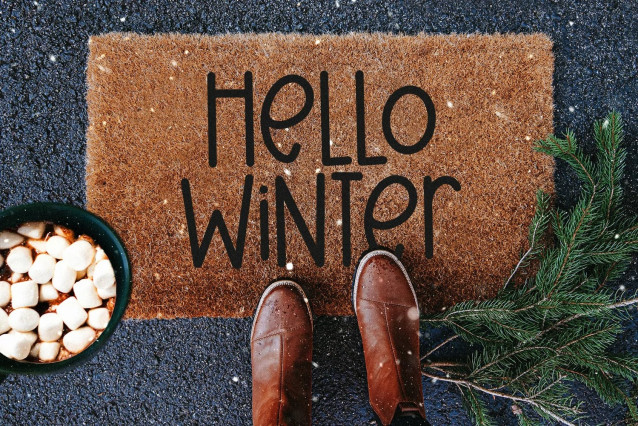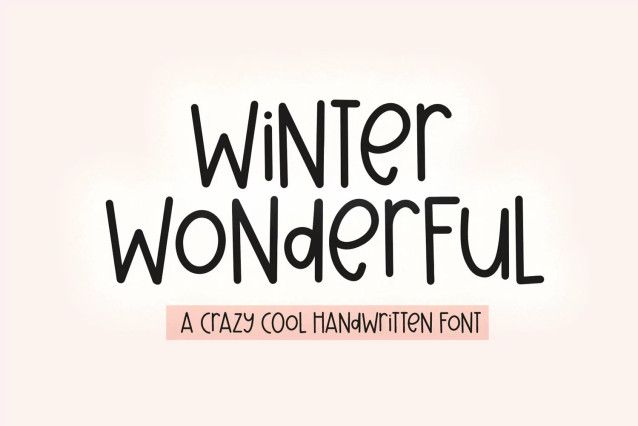
Winter Wonderful Font
Winter Wonderful Font is a quirky handwritten font! This is a mixed-case font with big and small letters that is sure to make your design look unique! Use Winter Wonderful for your craft projects, shirts, vinyl, svg files, signs, stickers and more!